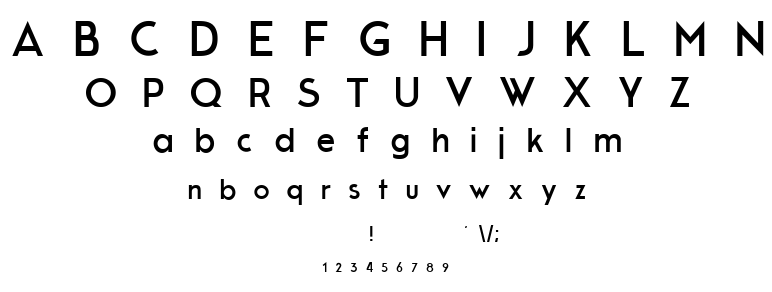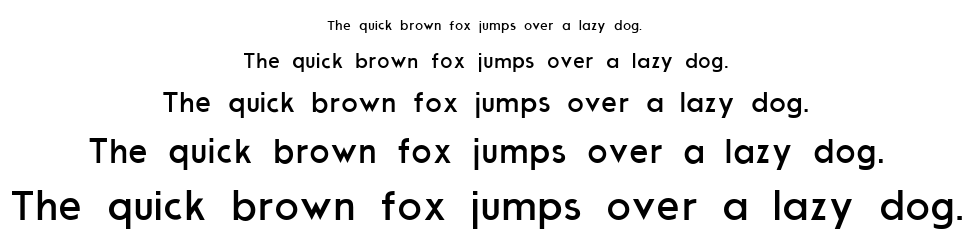
Moderne Sans is a clean sans-serif typeface free for you to download, created by Marius Kempken.
Inspiered from the great 1920s fontfamilys. This Typeface based on upper case letters, but I creat lower case letters, numbers and some alternative letters too.